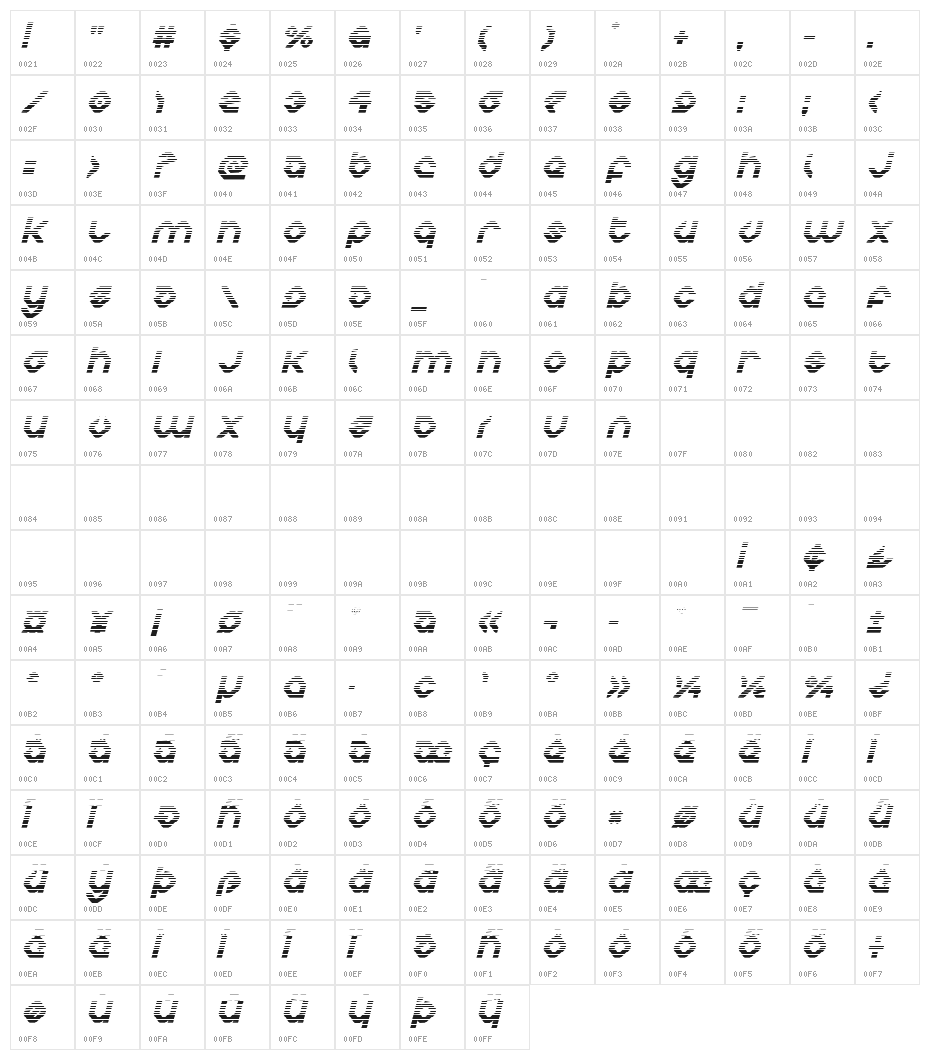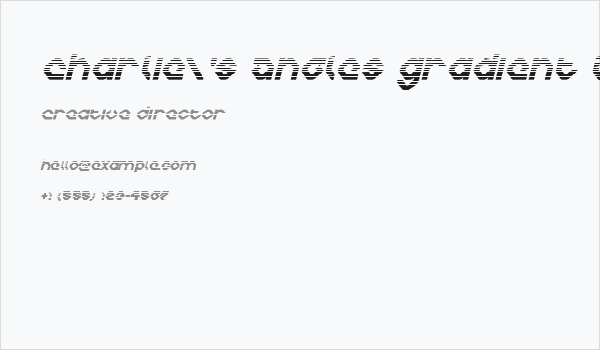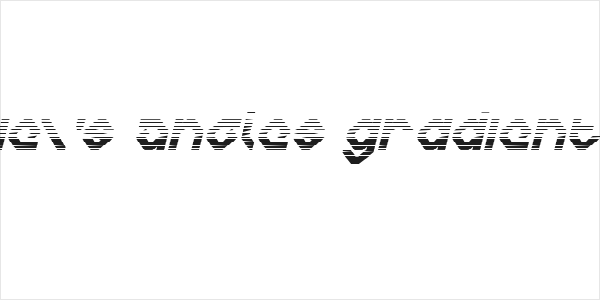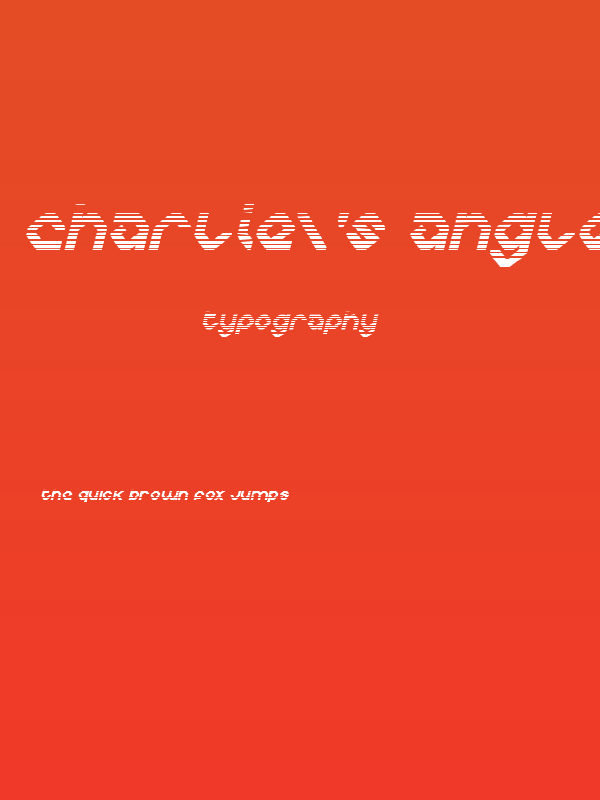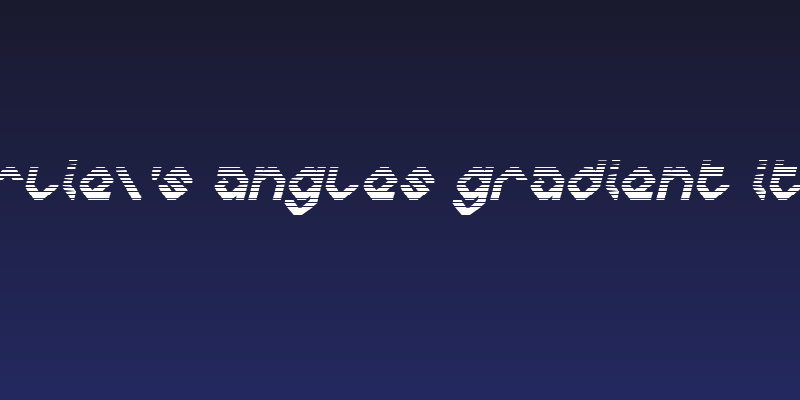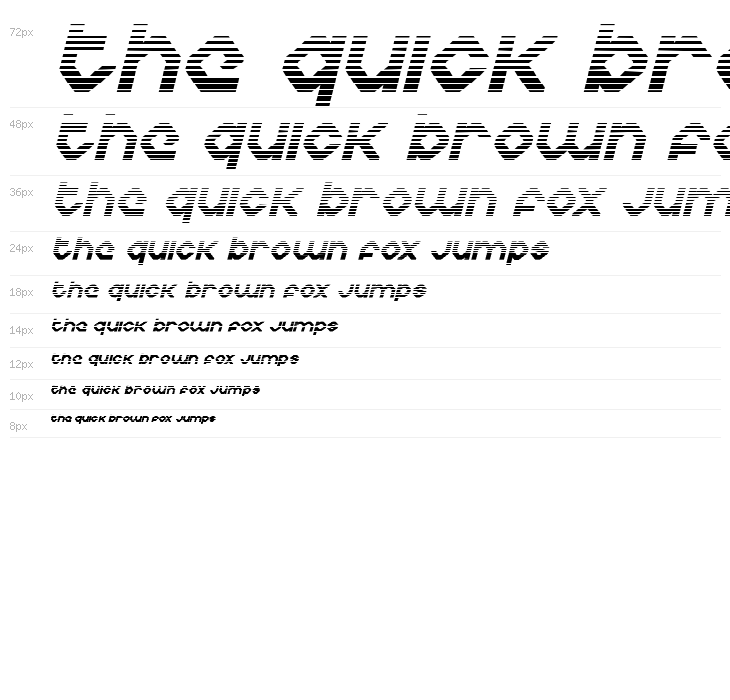
Charlie's Angles Gradient Italic Font
Charlie's Angles Gradient Italic Description
This font features a unique, modern design characterized by its gradient and italicized style. The letters are composed of horizontal lines that create a dynamic, striped effect, giving the font a sense of movement and depth. The italic slant adds a sleek, forward-leaning appearance, enhancing its contemporary feel. The characters are well-defined, with a consistent pattern that maintains readability while offering a visually striking aesthetic. This font is ideal for projects that require a bold and futuristic look, making it suitable for creative and innovative designs.
| Proposed Projects | Ideal for futuristic branding, tech-related designs, modern posters, and digital media. |